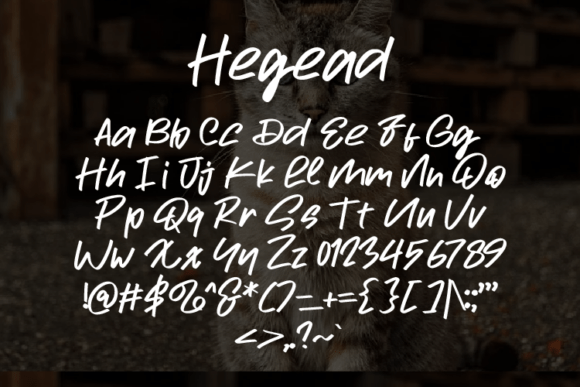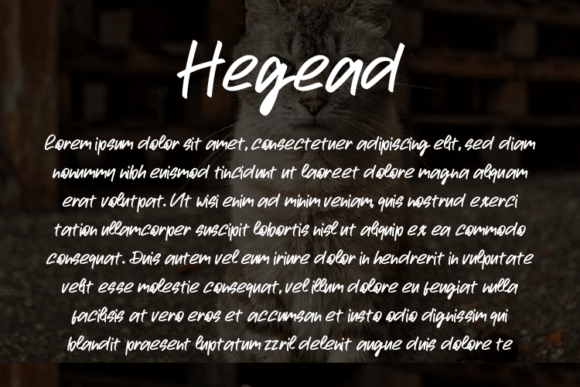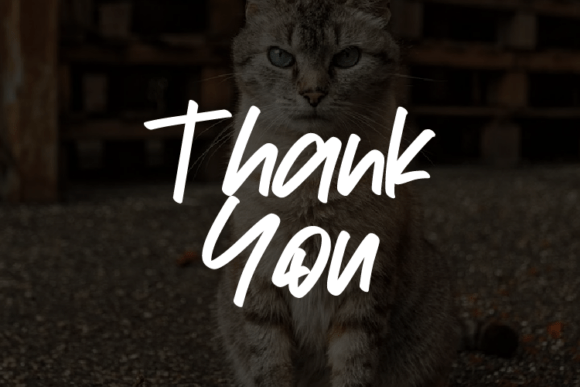
Introducing Hegead Font: Elevate Your Designs with Elegance and Versatility
In the world of typography, a font can make or break a design. For designers, crafters, and anyone looking to add a touch of sophistication to their projects, Hegead Font is a game-changer. This modern and elegant typeface is crafted to offer flexibility and excellent readability across a wide range of media, making it an indispensable tool in your design arsenal.
What is Hegead Font?
Hegead is a thoughtfully designed typeface that caters to the needs of contemporary design. Its primary goal is to provide a clear, readable, and aesthetically pleasing appearance in various applications, from digital screens to print materials. Whether you’re working on a branding project, crafting a website, or creating engaging social media content, Hegead Font ensures your text looks impeccable.
Key Features of Hegead Font
- Modern and Elegant Design: Hegead boasts a sleek and sophisticated look, making it perfect for designs that demand a touch of elegance.
- Flexibility: Its versatile nature allows it to be used in a wide array of projects, from professional corporate designs to creative personal crafts.
- Excellent Readability: Hegead is optimized for readability, ensuring that your audience can easily digest the information you’re presenting, whether on a billboard, a website, or a business card.
Hegead Font offers numerous benefits for designers and crafters looking to elevate their projects:
- Time-Saving: With its excellent readability and versatile design, Hegead Font saves you time in choosing and adjusting fonts for different projects.
- Professionalism: The elegant and modern design of Hegead adds a professional touch to any project, helping you to stand out.
Hegead Font is a versatile, elegant, and highly readable typeface designed to meet the demands of modern design. Its compatibility with a wide range of software and platforms, coupled with its .otf file format, makes it an excellent choice for designers and crafters worldwide. By incorporating Hegead Font into your projects, you’re not just choosing a font; you’re elevating your design’s aesthetic and professional value. Discover the difference Hegead can make in your work today.